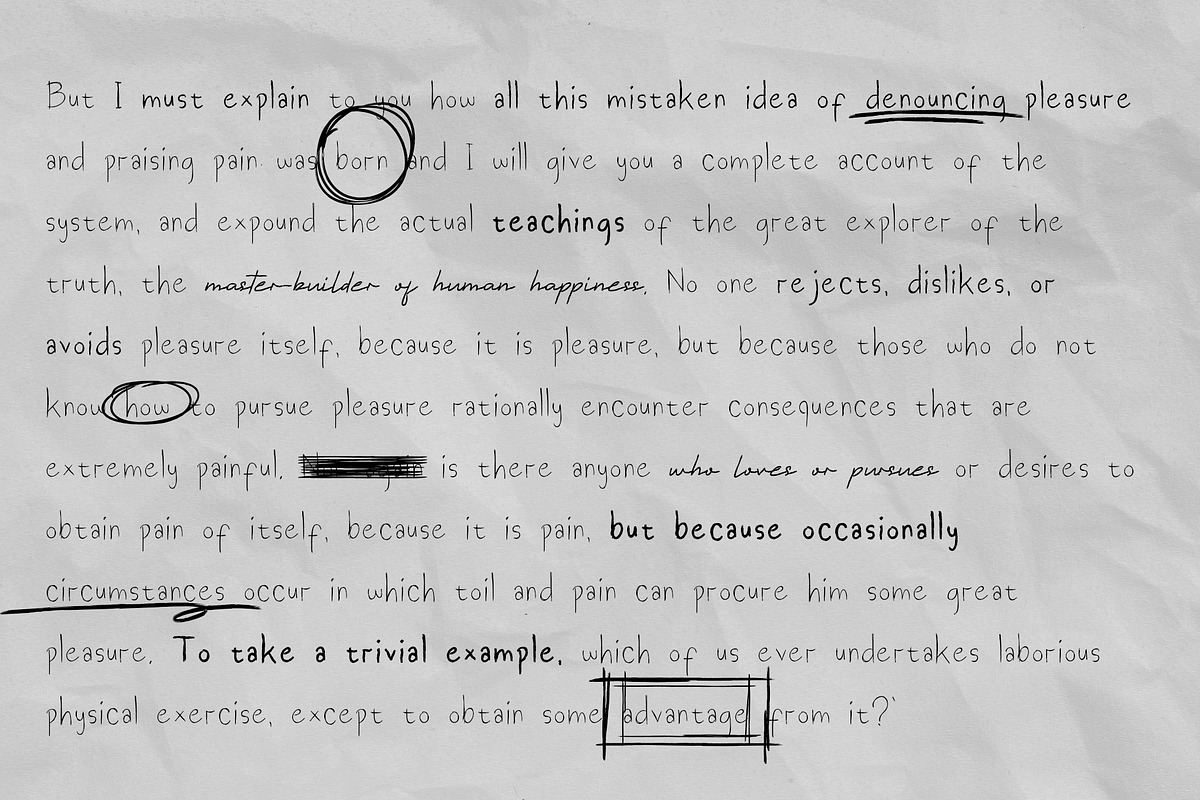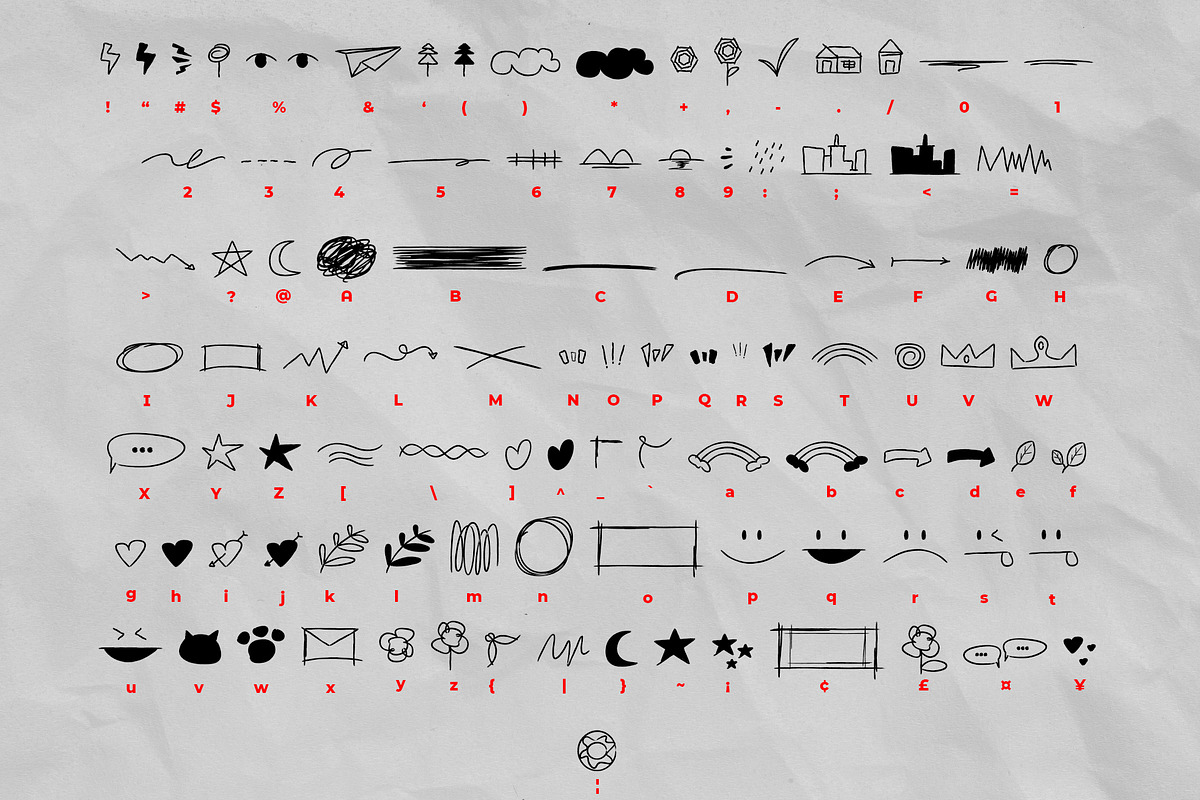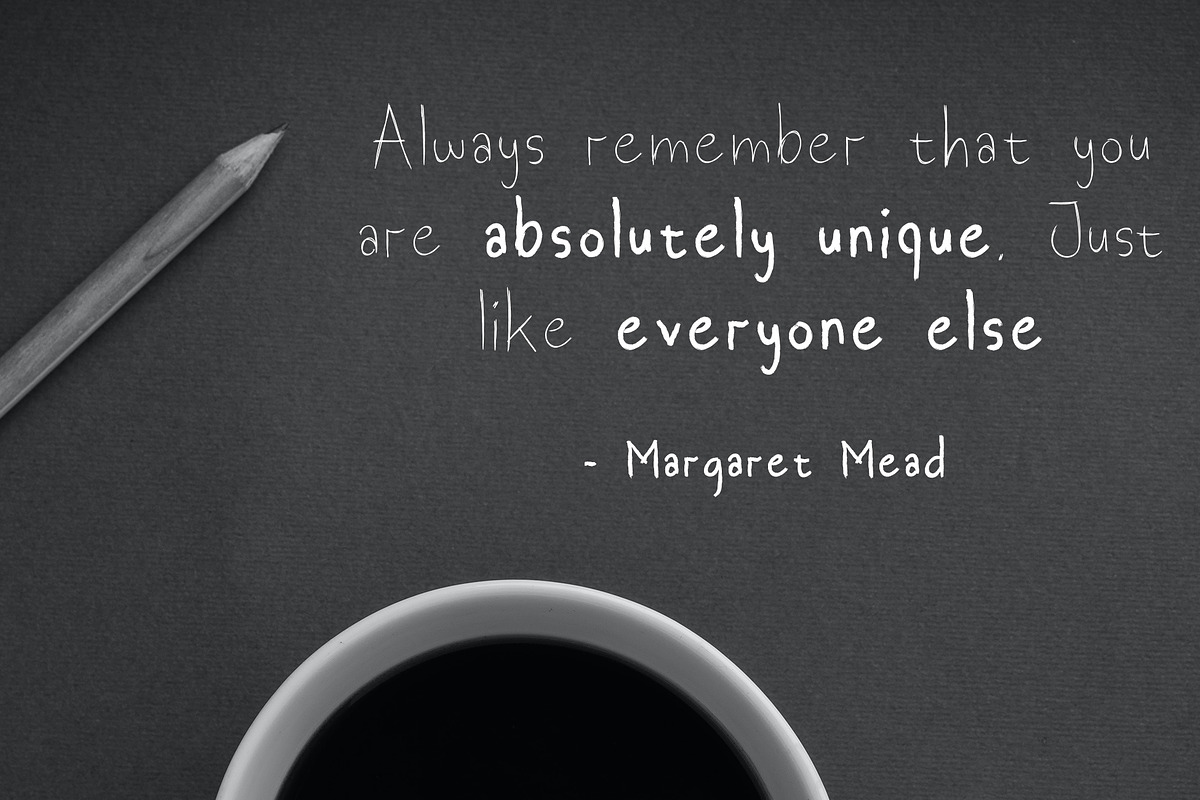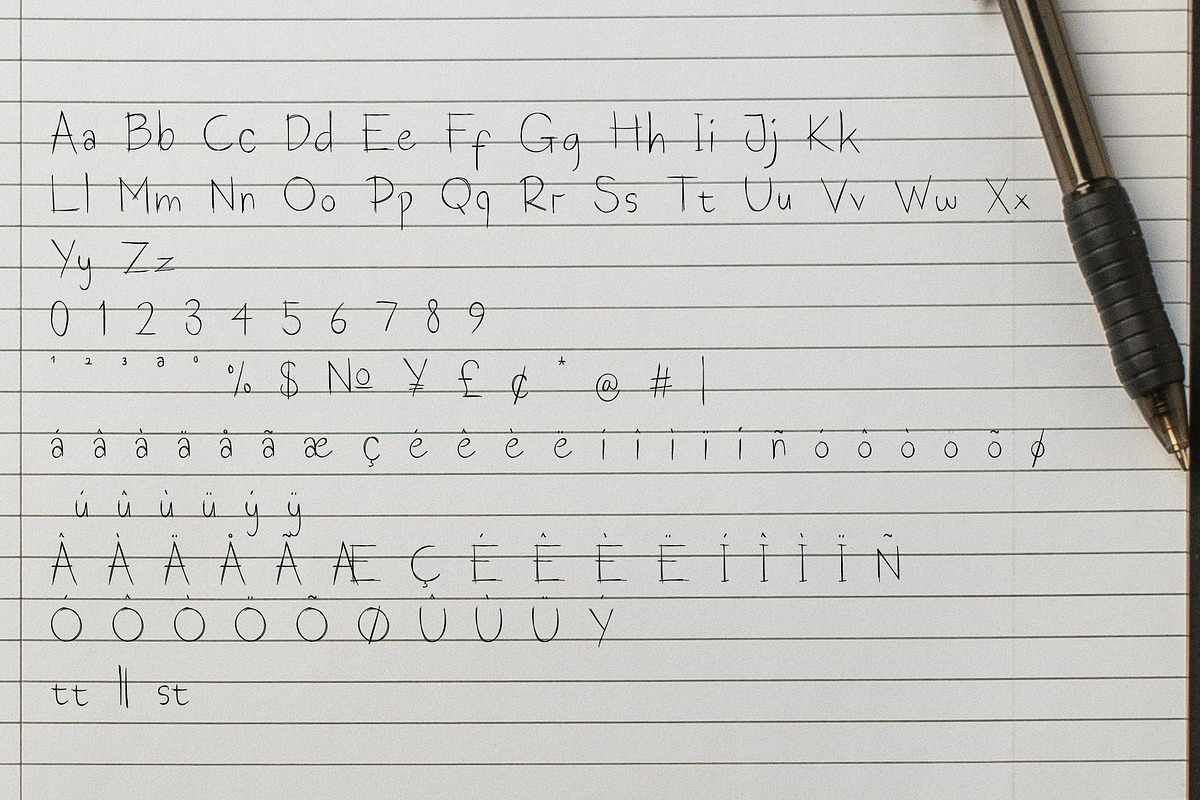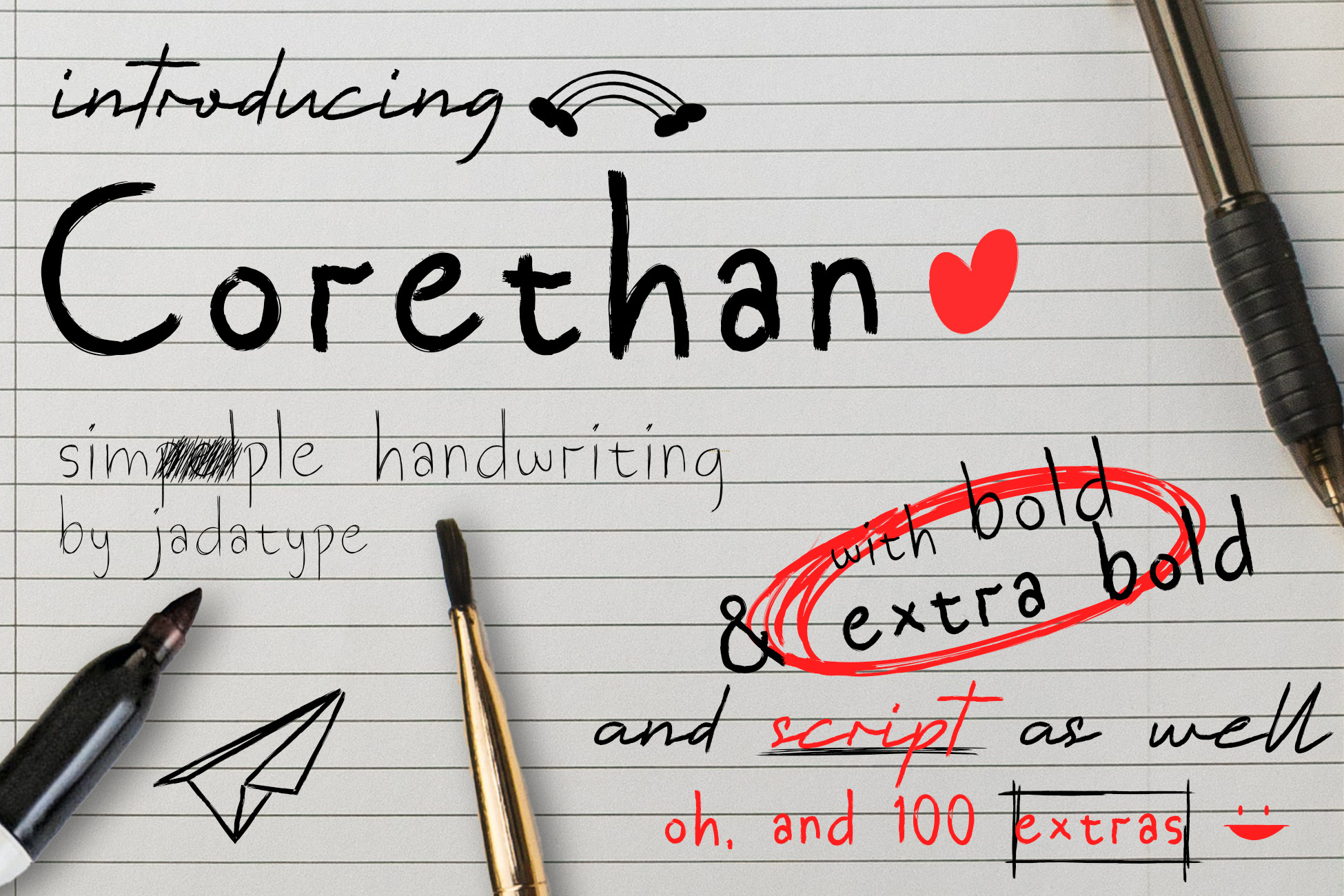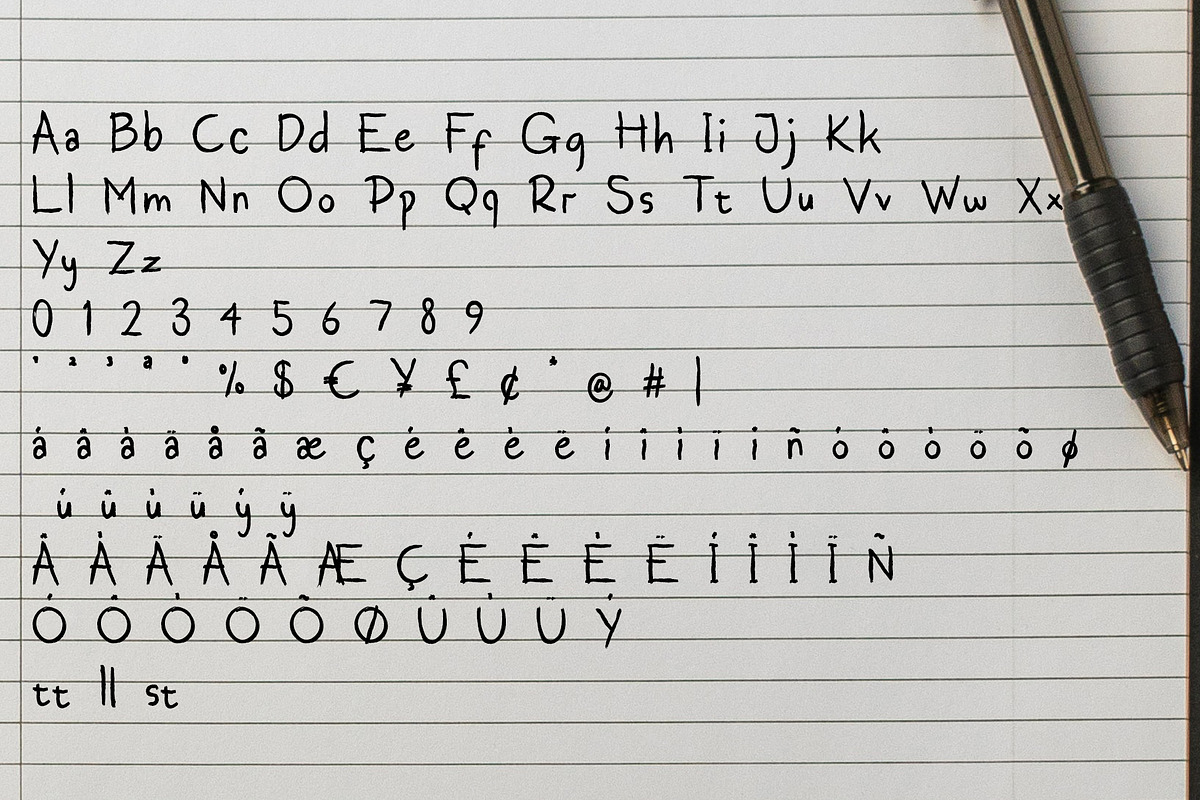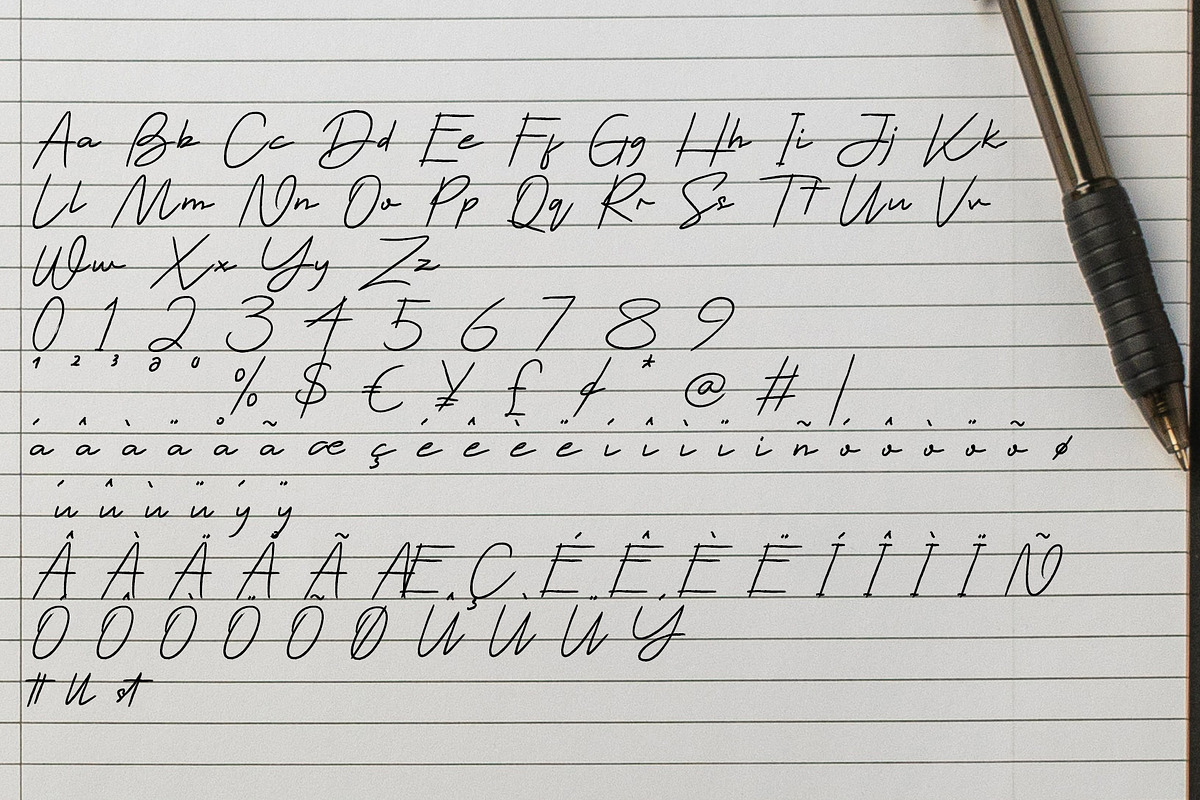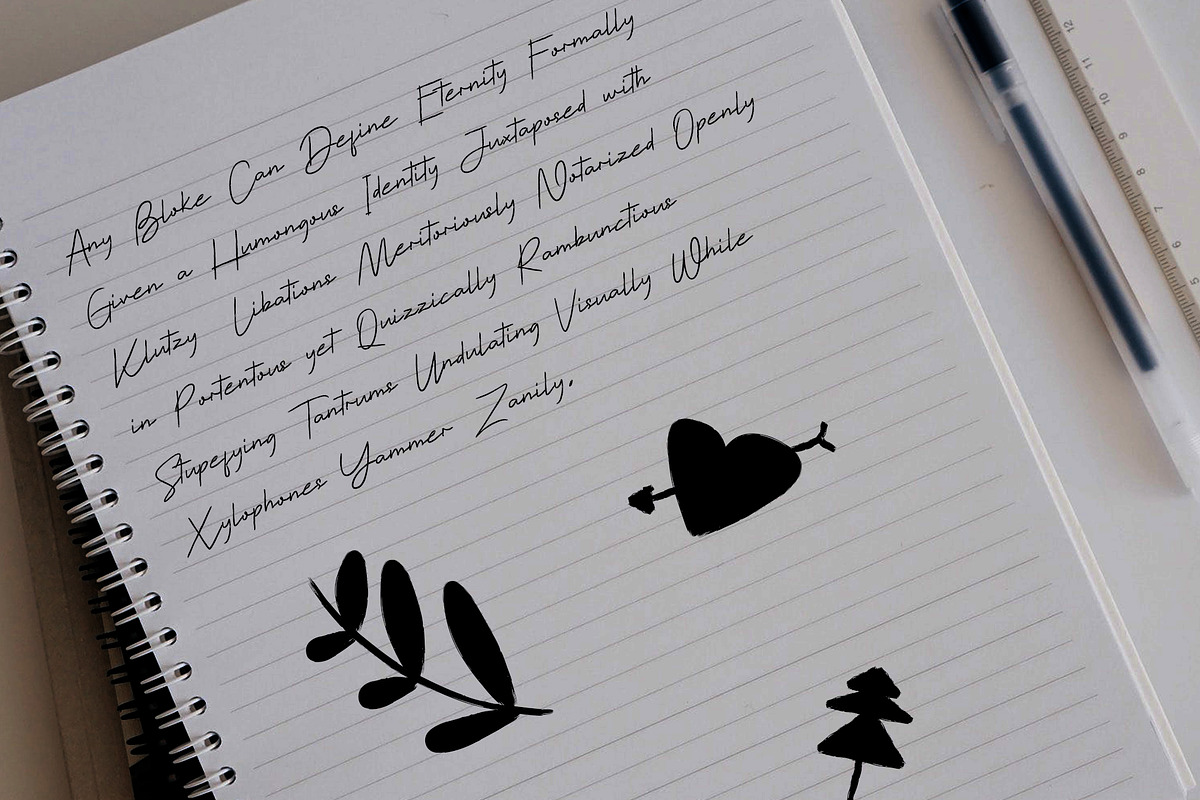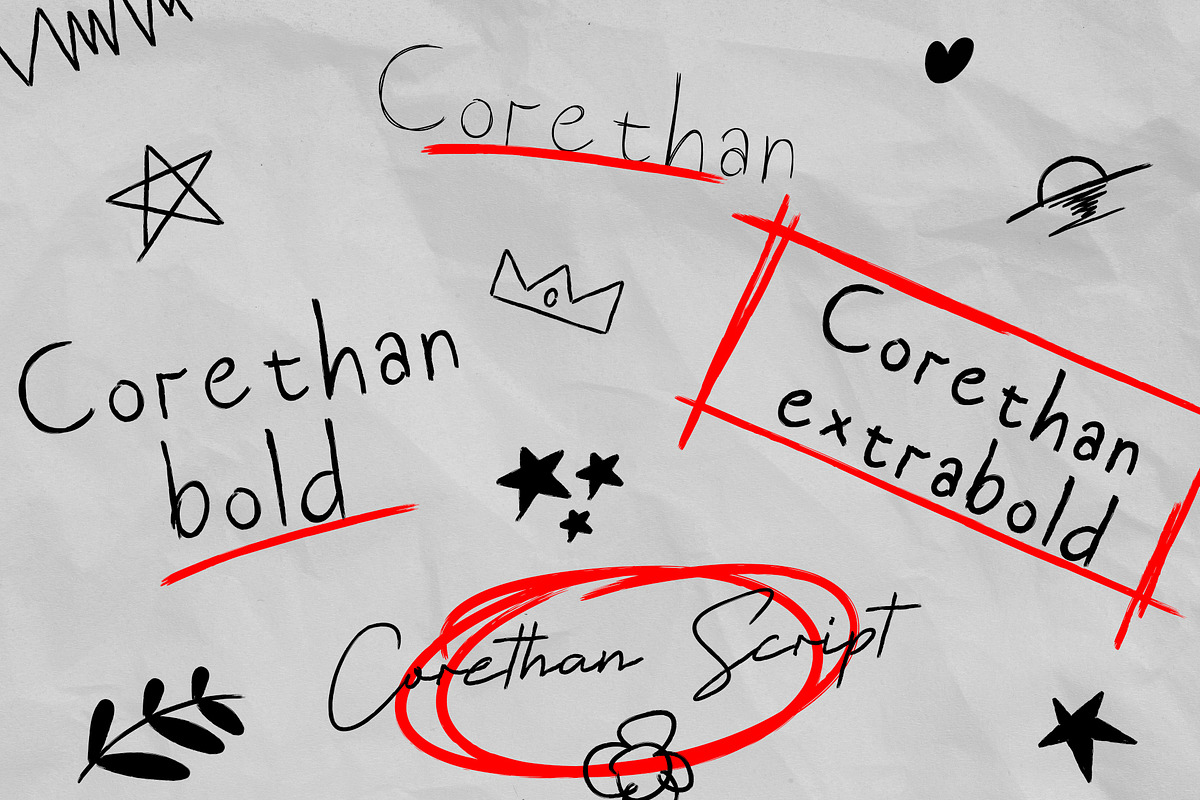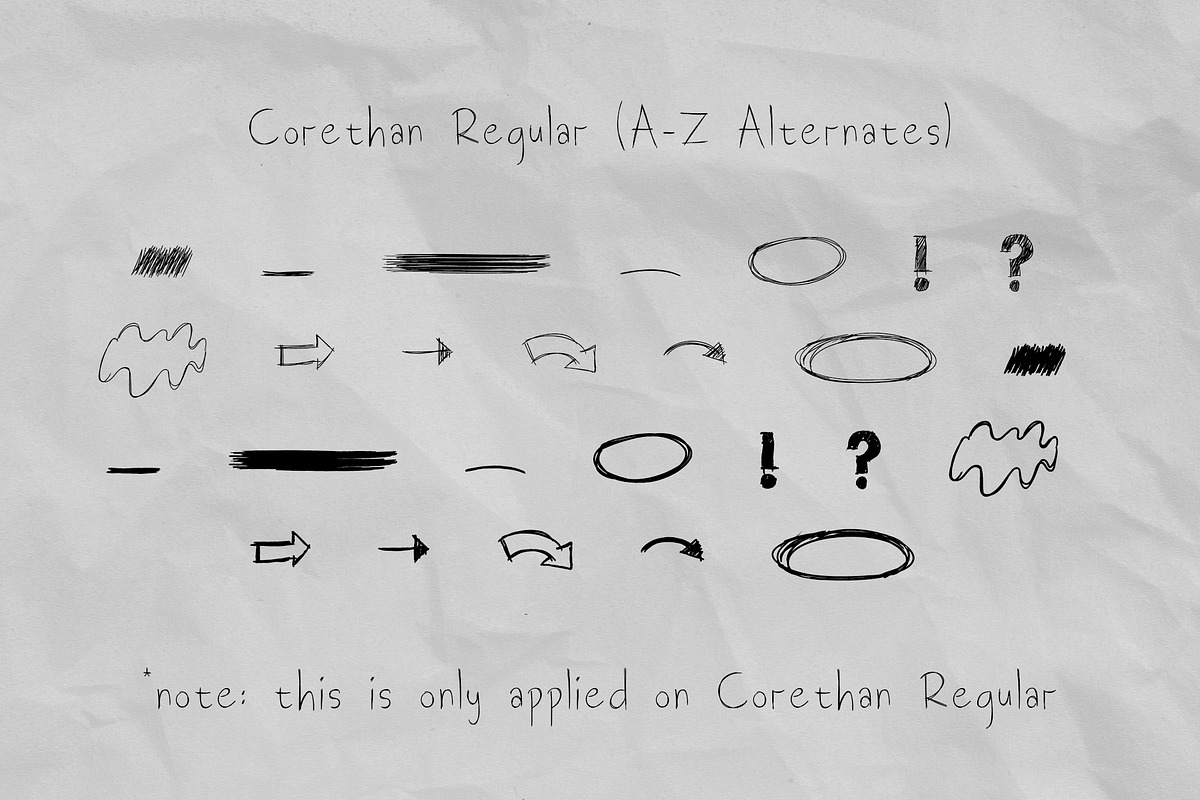
Corethan Font | 4 Fonts + Dingbats
Corethan is a display-script font with natural handwriting style. suitable for social media, event, craft, advertisements, and so on. contains standard English letters, numbers, punctuation, alternates and several accents that support multilingualism.